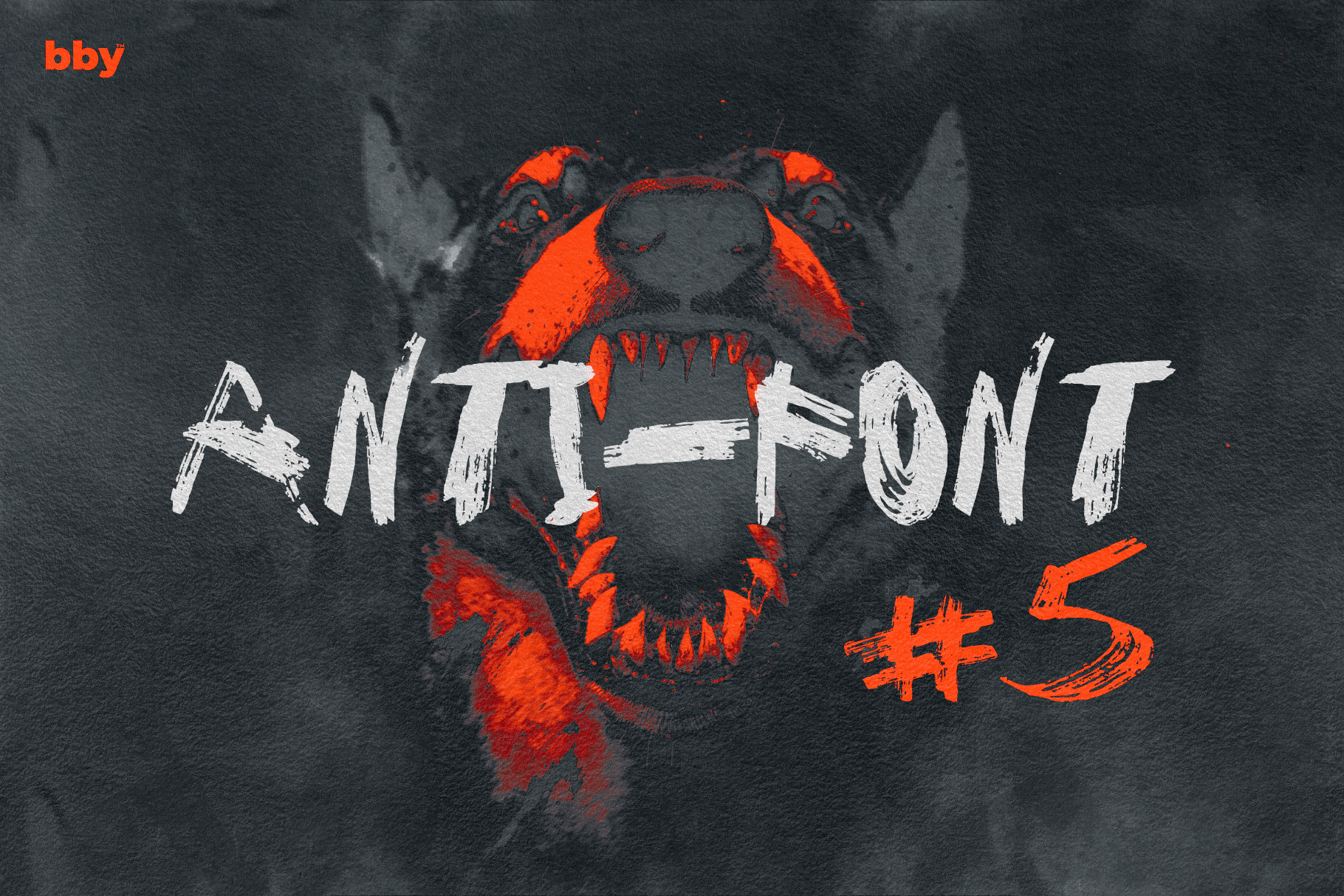
Anti-Font #5
The new Anti-Font no. 5 from our Anti-Design#1 - The Chaos Collection is an ugly, bold, nonconventional, aggressive, and impertinent font face. Nowadays, it is a real challenge for designers to create engaging designs. But you know us, we play no games, we only create truly impactful design concepts that attract. Anti-Font #5 has uncommon energy that makes you use this type constantly. The font is perfect for titles and headings, but in small sizes, it becomes a little bit too rough. It can also be used successfully as an accent to create a design concept more interesting.